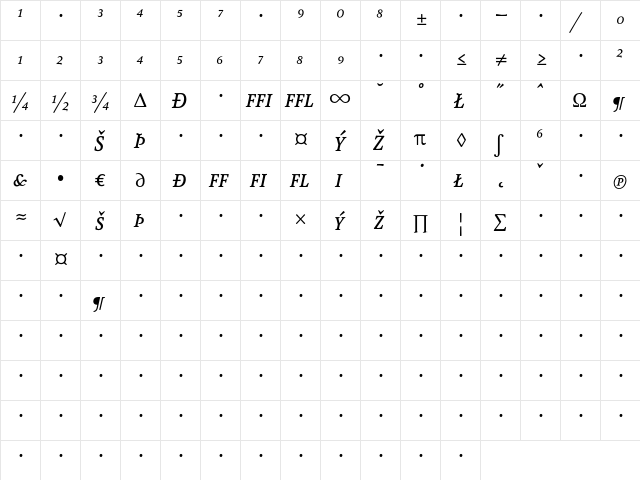
AtmaSerifExp-MediumItalicQC Regular
Design Context for AtmaSerifExp-MediumItalicQC Typeface
AtmaSerifExp-MediumItalicQC carries the refined structure of traditional serif typography, with bracketed terminals and considered proportions that communicate credibility and craft. The dynamic lean of this cut emphasises speed and emphasis in any layout.
Pro Tip: Set AtmaSerifExp-MediumItalicQC with slightly loose tracking in headlines to let each letterform's detail read clearly at display sizes.